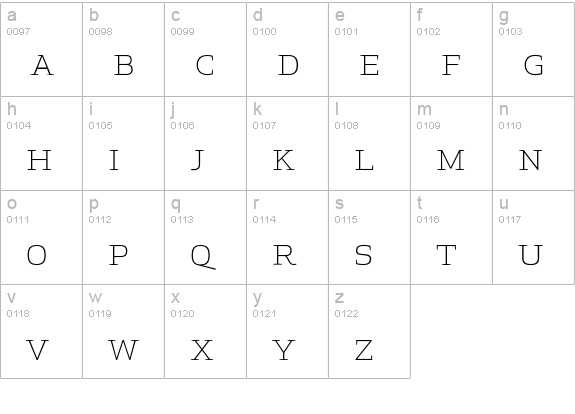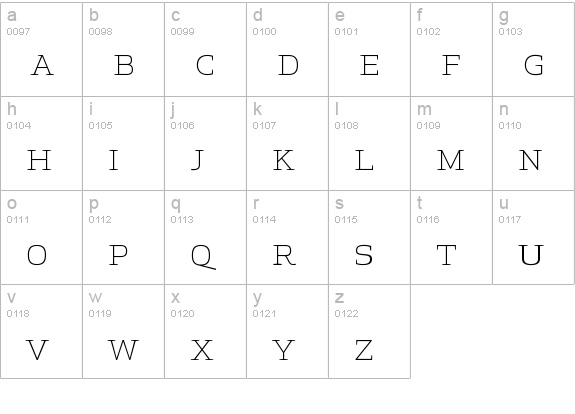
ApexSerif-LightCaps is a stunning and elegant serif font that exudes sophistication and style. With its delicate serifs and clean lines, this font is perfect for creating a refined and polished look in your designs. The light weight of the font gives it a modern and airy feel, making it versatile for a wide range of projects. Whether you're designing a logo, creating a poster, or crafting a wedding invitation, ApexSerif-LightCaps will add a touch of class and elegance to your work. Best of all, this font is available for free download at FontsMarket.com, so you can easily add it to your font library and start using it in your projects right away. Upgrade your designs with the timeless beauty of ApexSerif-LightCaps today!